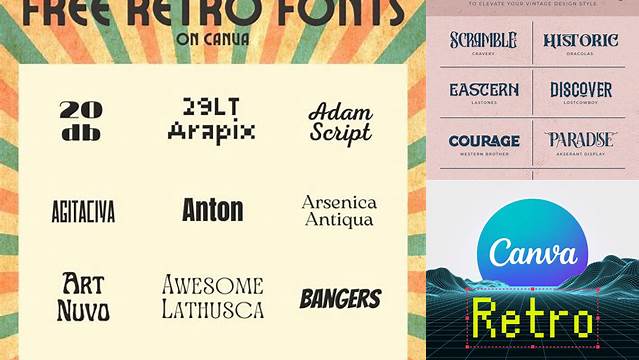
Bold Retro Fonts: Design Guide On Canva
Retro fonts are making a huge comeback, guys! They bring a unique sense of nostalgia and character to any design, and Canva makes it super easy to incorporate them into your projects. In this article, we're going to dive deep into the world of bold retro fonts available on Canva, exploring why they're so popular, how to use them effectively, and some specific examples to get you inspired. So, buckle up and let's get started on this groovy journey through vintage typography!
Why Choose Bold Retro Fonts?
When it comes to design, bold retro fonts serve as more than just stylish choices; they are potent tools for evoking specific eras and emotions. The appeal of retro fonts lies in their ability to transport audiences back in time, stirring up feelings of nostalgia and familiarity. Think about the bold, playful fonts of the 1960s and 70s, the sleek, geometric typefaces of the Art Deco era, or the quirky, hand-drawn styles of the 1980s. Each style carries its own distinct personality and cultural associations, making them invaluable for setting the tone and mood of a project. For instance, if you're designing a poster for a retro-themed party, a bold, bubbly font reminiscent of disco days would instantly convey the theme. Similarly, for a project aiming to exude classic elegance, an Art Deco-inspired font with its sharp lines and geometric shapes could be the perfect fit. Retro fonts, therefore, aren't merely decorative; they're narrative elements that can significantly enhance the storytelling aspect of your design.
Beyond their aesthetic value, bold retro fonts possess remarkable versatility. They can be employed across a wide range of design contexts, from branding and advertising to web design and social media graphics. In branding, a carefully chosen retro font can help a business establish a unique identity and connect with its target audience on a deeper level. For example, a vintage-inspired logo can suggest a sense of heritage and craftsmanship, qualities that resonate with consumers seeking authenticity. In advertising, retro fonts can make a campaign stand out by breaking away from contemporary design trends and capturing attention with their distinctive flair. On the web, these fonts can add character to websites, making them more engaging and memorable for visitors. The key to effective use lies in selecting a font that aligns not only with the overall design aesthetic but also with the message being conveyed. A mismatch between font style and content can dilute the impact, whereas a harmonious pairing can amplify the message and leave a lasting impression. This versatility makes bold retro fonts a valuable asset in any designer’s toolkit.
Furthermore, the impact of bold retro fonts extends to enhancing readability and visual hierarchy within designs. The inherent characteristics of these fonts, such as their strong letterforms and distinctive styles, can make text more legible and draw the eye to key elements. Bold fonts, in particular, are excellent for headlines and titles, where they command attention and create a clear focal point. By using bold retro fonts strategically, designers can guide the viewer’s eye through the design, ensuring that important information is easily noticed and understood. For instance, in a poster design, a bold retro font used for the main event title will immediately grab attention, while a simpler font can be used for supporting details. This contrast in typography creates a visual hierarchy that helps viewers process the information effectively. Additionally, the unique shapes and details of retro fonts can add visual interest to a design, making it more engaging and less monotonous. The strategic use of these fonts can transform a simple layout into a visually compelling composition, underscoring their importance in creating effective and aesthetically pleasing designs.
Canva: Your Retro Font Playground
Canva is a fantastic platform for anyone looking to experiment with bold retro fonts, whether you're a seasoned designer or just starting out. The platform's user-friendly interface and vast library of fonts make it easy to find the perfect typeface for your project. What's great about Canva is that you don't need to be a typography expert to achieve professional-looking results. The platform offers a wide variety of retro fonts, ranging from classic serifs and scripts to more modern and quirky styles. This diversity ensures that there's something for every design need and aesthetic preference. You can easily browse through the font library, preview different fonts in your design, and adjust the size, color, and spacing to get the perfect look. This ease of use empowers designers to focus on creativity rather than getting bogged down in technicalities.
Beyond its extensive font library, Canva provides a range of tools and features that enhance the font selection and application process. The platform's search and filter options make it straightforward to narrow down your choices and find the specific type of retro font you're looking for. You can filter fonts by style, weight, and even specific characteristics like vintage, script, or serif. This targeted search capability saves time and effort, allowing you to quickly identify fonts that align with your design vision. Additionally, Canva offers pre-designed templates that incorporate retro fonts, providing inspiration and a starting point for your projects. These templates showcase how different fonts can be used in various design contexts, from posters and logos to social media graphics and presentations. By exploring these templates, you can gain insights into effective font pairings and layout techniques, further enhancing your design skills.
Moreover, Canva’s collaborative features make it an ideal platform for team projects involving bold retro fonts. Designers can easily share their work with colleagues, clients, or collaborators, allowing for seamless feedback and revisions. This collaborative aspect is particularly valuable when working on projects where font selection is a critical element of the design. Team members can review the font choices, provide input on readability and aesthetic appeal, and ensure that the typography aligns with the overall brand or message. Canva’s real-time collaboration tools facilitate this process, making it easy to discuss font options, experiment with different styles, and arrive at a consensus. The ability to work together on font selection ensures that the final design reflects a cohesive and well-considered typographic approach, enhancing the overall quality and impact of the project.
Popular Bold Retro Fonts on Canva
Okay, let's get to the good stuff – some specific bold retro fonts you can find on Canva that will really make your designs pop!
- Bebas Neue: This is a classic sans-serif that has a retro feel while still looking modern. It's super versatile and works well for headlines and body text.
- Montserrat: Another great sans-serif option, Montserrat has a geometric quality that gives it a vintage, almost Bauhaus-inspired vibe.
- Playfair Display: If you're looking for a serif font with a touch of elegance, Playfair Display is a fantastic choice. It has a high contrast that makes it feel both classic and contemporary.
- Oswald: This font has a slightly condensed style, which makes it great for headlines and titles. It's bold and impactful, perfect for grabbing attention.
- League Gothic: Inspired by classic ATF fonts, League Gothic is a bold and condensed sans-serif that screams retro cool. It's ideal for posters and anything that needs a strong, vintage look.
These are just a few examples, guys, but Canva has tons of other amazing retro fonts to explore. Don't be afraid to experiment and try different combinations to find what works best for your project!
How to Use Bold Retro Fonts Effectively
Using bold retro fonts effectively involves more than just selecting a visually appealing typeface; it requires a thoughtful approach to ensure the font enhances the overall design and communicates the intended message clearly. One of the most critical considerations is context. The font you choose should align with the theme and purpose of your project. For instance, a playful, rounded font might be perfect for a children’s book or a retro-themed party invitation, but it would likely be out of place in a formal business presentation or a legal document. Understanding the context and the audience helps in selecting a font that not only looks good but also reinforces the message and evokes the desired emotions. This alignment between font and context is crucial for creating a cohesive and impactful design.
Pairing fonts effectively is another essential aspect of using bold retro fonts successfully. While a bold retro font can make a strong statement on its own, combining it with other fonts can create a more dynamic and visually interesting design. The key to successful font pairing is contrast. A common strategy is to pair a bold retro font with a simpler, more modern font to balance the vintage charm with contemporary readability. For example, a bold script font used for a heading might be paired with a clean sans-serif font for the body text. This contrast not only makes the design more visually appealing but also ensures that the text remains legible and easy to read. It’s important to avoid pairing fonts that are too similar, as this can create a visually monotonous and unappealing effect. Experimenting with different font combinations and considering the overall harmony of the typography is vital for achieving a polished and professional look.
Finally, consider the visual hierarchy when incorporating bold retro fonts into your designs. Bold fonts naturally draw the eye, making them ideal for headlines, titles, and key messages. However, overusing bold fonts can create visual clutter and diminish their impact. It’s important to use bold retro fonts strategically to guide the viewer’s eye through the design and highlight the most important information. This can be achieved by using bold fonts sparingly, reserving them for elements that need to stand out, and using lighter or simpler fonts for secondary text. Size and spacing also play a crucial role in creating a clear visual hierarchy. Larger font sizes and ample spacing around headings can further emphasize their importance, while smaller font sizes and tighter spacing can be used for less critical information. By carefully considering the visual hierarchy, designers can ensure that their message is communicated effectively and that the overall design is both visually appealing and easy to navigate.
Tips for Designing with Bold Retro Fonts on Canva
Alright, guys, here are some quick tips to help you nail your designs using bold retro fonts on Canva:
- Don't Overdo It: A little retro goes a long way. Too many vintage elements can make your design look cluttered and dated.
- Consider Readability: Make sure your font is legible, especially for body text. Not all retro fonts are created equal in terms of readability.
- Color Matters: Pair your retro fonts with colors that complement the style. Think about the color palettes of the era you're trying to evoke.
- Use White Space: Give your design some breathing room. White space can help your retro fonts stand out and prevent your design from feeling too busy.
- Experiment!: The best way to learn is by doing. Try different fonts, colors, and layouts to see what works best for your project.
Bold retro fonts are a fantastic way to add personality and flair to your designs, and Canva makes it easier than ever to incorporate them into your projects. By understanding the history and characteristics of these fonts, and by following the tips outlined in this article, you can create stunning designs that capture the essence of vintage style. So go ahead, guys, dive into Canva's font library and start experimenting with some bold retro goodness. Your designs will thank you for it!